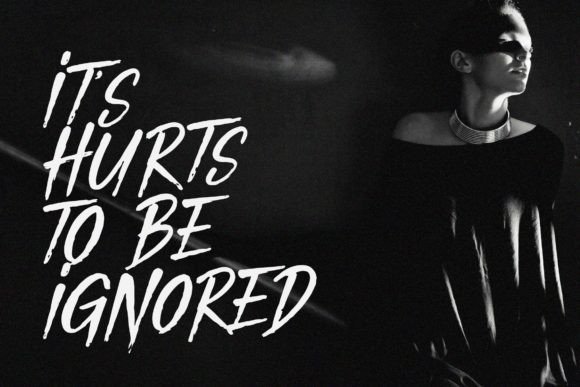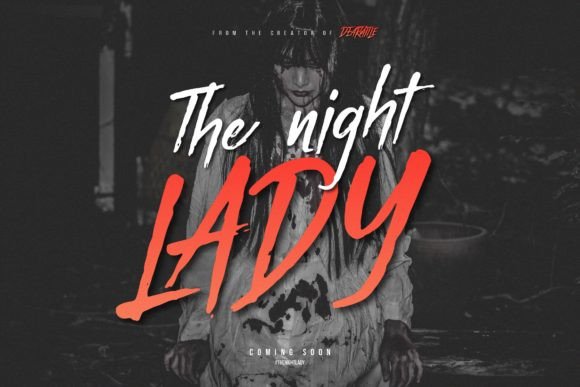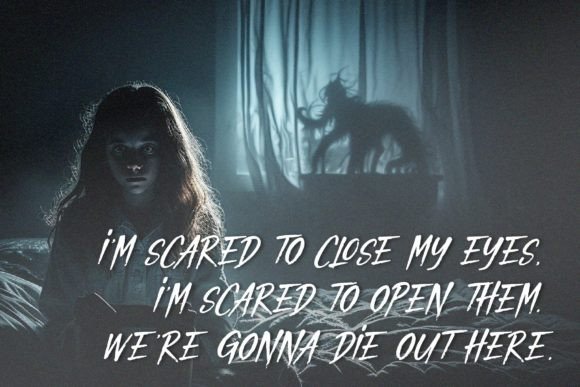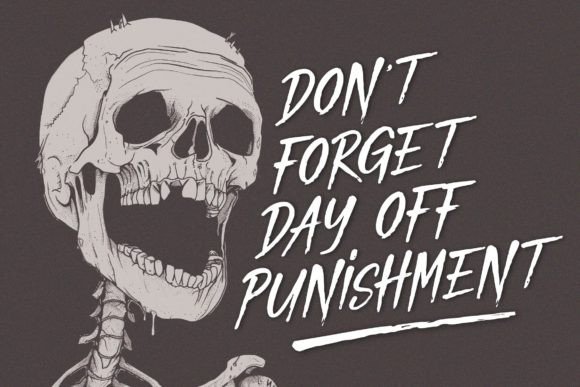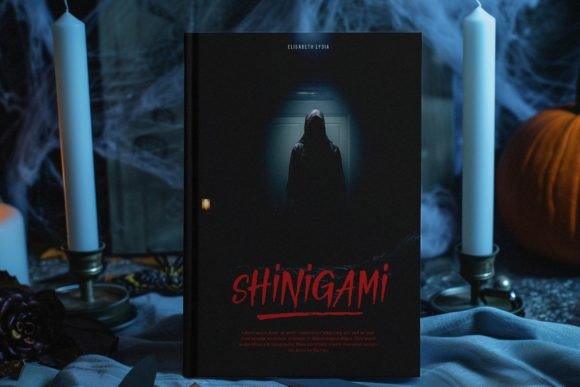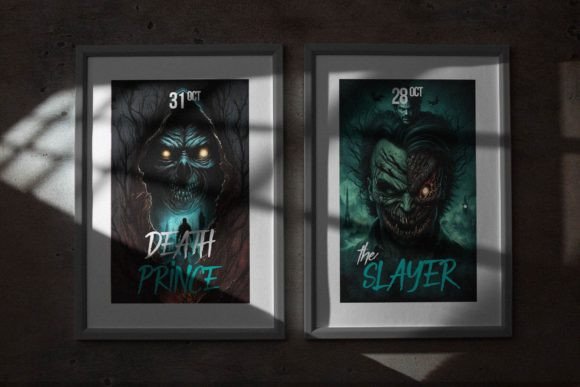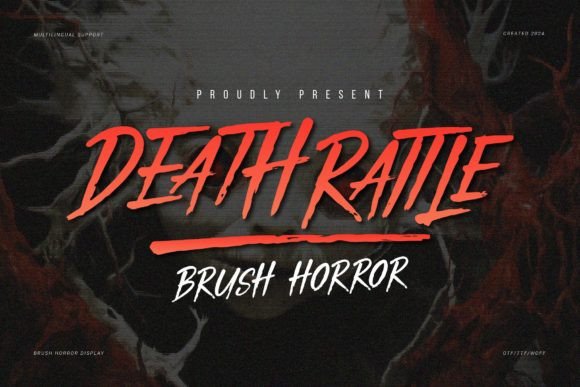
Unleash the Horror: Exploring the Death Rattle Font
Are you a designer or crafter looking to add a spooky touch to your projects? Look no further than the Death Rattle font, a horror-themed font that’s perfect for creating a scary or creepy mood in posters, games, or Halloween designs. In this article, we’ll dive into the world of Death Rattle, exploring its unique features, uses, and benefits.
What is Death Rattle Font?
“Death Rattle” is a spooky font with a horror theme. The letters look rough and jagged, as if they were scratched or torn. This font is designed to evoke a sense of fear and unease, making it ideal for projects that require a creepy or eerie atmosphere. Whether you’re designing a Halloween-themed poster, creating a horror game, or crafting a spooky invitation, Death Rattle is the perfect choice.
Key Features of Death Rattle Font
- Rough and Jagged Letters: The letters in Death Rattle are designed to look rough and jagged, giving them a distressed and worn appearance.
- Horror Theme: The font is specifically designed with a horror theme in mind, making it perfect for projects that require a spooky or creepy atmosphere.
- Highly Versatile: Death Rattle can be used in a variety of projects, from posters and games to invitations and crafts.
Uses of Death Rattle Font
Death Rattle is a highly versatile font that can be used in a variety of projects. Here are some ideas to get you started:
- Halloween Designs: Use Death Rattle to create spooky posters, invitations, and decorations for Halloween.
- Horror Games: Add a touch of horror to your game with Death Rattle, perfect for game titles, subtitles, and dialogue.
- Creepy Posters: Create eye-catching posters with Death Rattle, perfect for promoting horror movies, haunted houses, or spooky events.
- Crafts and DIY Projects: Use Death Rattle to add a spooky touch to your craft projects, such as making spooky signs, decorations, or cards.
Benefits of Using Death Rattle Font
So why choose Death Rattle for your projects? Here are some benefits of using this spooky font:
- Instantly Evokes a Spooky Atmosphere: Death Rattle is designed to create a creepy and eerie atmosphere, making it perfect for projects that require a spooky touch.
- Highly Readable: Despite its distressed appearance, Death Rattle is highly readable, making it perfect for use in titles, headings, and body text.
Tips for Using Death Rattle Font
Here are some tips for getting the most out of Death Rattle:
- Use it Sparingly: Death Rattle is a bold font, so use it sparingly to avoid overwhelming your design.
- Experiment with Colors: Try pairing Death Rattle with different colors to create a unique and eye-catching design.
- Combine with Other Fonts: Combine Death Rattle with other fonts to create a contrasting and visually interesting design.
In conclusion, Death Rattle is a spooky font that’s perfect for designers and crafters looking to add a horror theme to their projects. With its rough and jagged letters, horror theme, and high versatility, Death Rattle is ideal for creating a scary or creepy mood in posters, games, or Halloween designs. Whether you’re a seasoned designer or a crafty DIY enthusiast, Death Rattle is a great addition to your font collection.